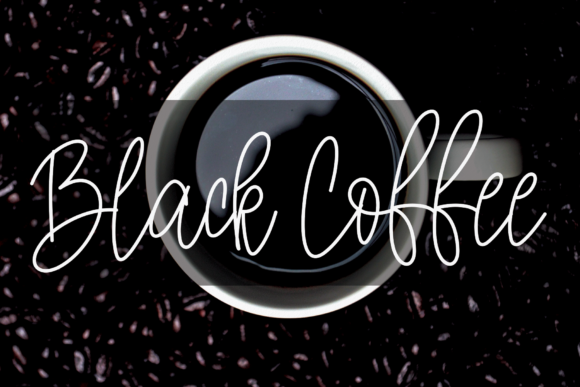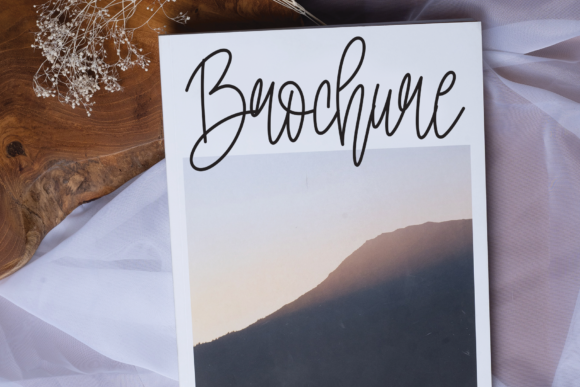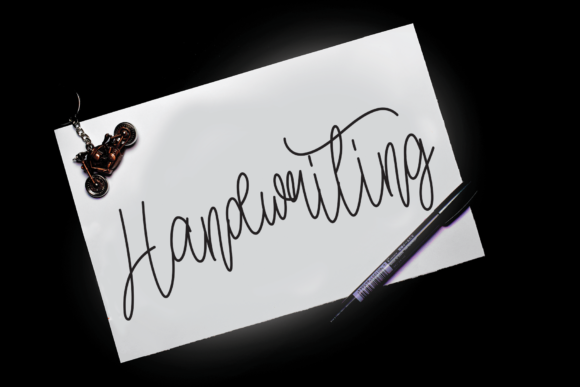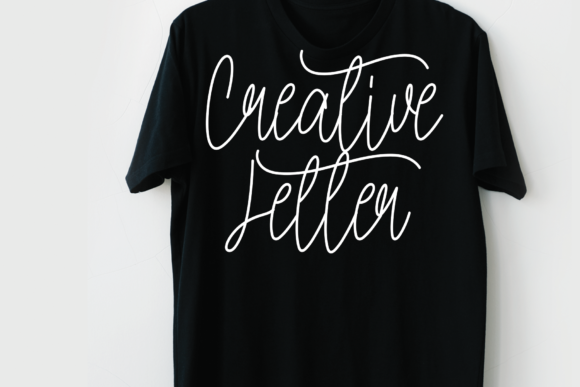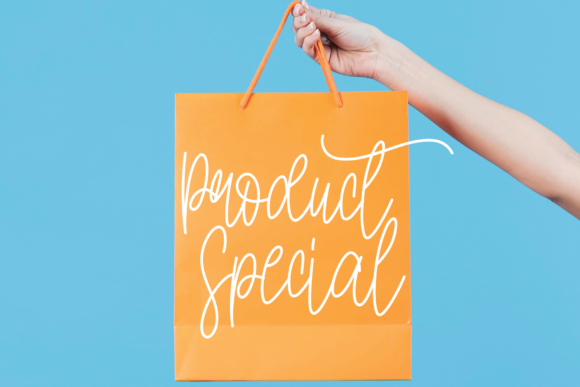
Black Coffee Font
Black Coffee is a delicate and elegant script font that adds a touch of sophistication and refinement to your creative projects. With its thin and graceful letterforms, it brings a sense of elegance and charm to any design.
The slender and delicate strokes of Black Coffee font create a graceful and sophisticated look, making it a perfect choice for various crafting ideas. Whether you’re designing cards, invitations, branding materials, labels, or any other project, Black Coffee font will elevate the overall aesthetic and add a touch of class.
The versatility of Black Coffee font allows it to be used in a wide range of applications. Its refined and stylish appearance makes it suitable for both digital and print media, ensuring that your designs stand out in any context.
Whether you’re aiming for a minimalist and modern look or a classic and timeless design, Black Coffee font adapts effortlessly to your creative vision. Its thin letterforms and clean lines give it a contemporary and polished appearance that is sure to catch the eye.
The delicate nature of Black Coffee font allows it to blend seamlessly with other design elements. It can be paired with bold or decorative fonts to create contrast and balance, or used on its own to create an understated and elegant look.
When you incorporate Black Coffee font into your crafting ideas, you’ll notice how it adds a touch of sophistication and refinement to your designs. Its thin and delicate letterforms exude elegance and create a visually pleasing composition.
Whether you’re designing cards for special occasions, creating a brand identity, or labeling your handmade products, Black Coffee font will bring a sense of elegance and elevate the overall aesthetic of your creations.
Indulge in the refined and delicate beauty of Black Coffee font, and let it enhance your crafting ideas with its sophisticated charm. Experience the joy of creating stunning designs that leave a lasting impression with this elegant script font.